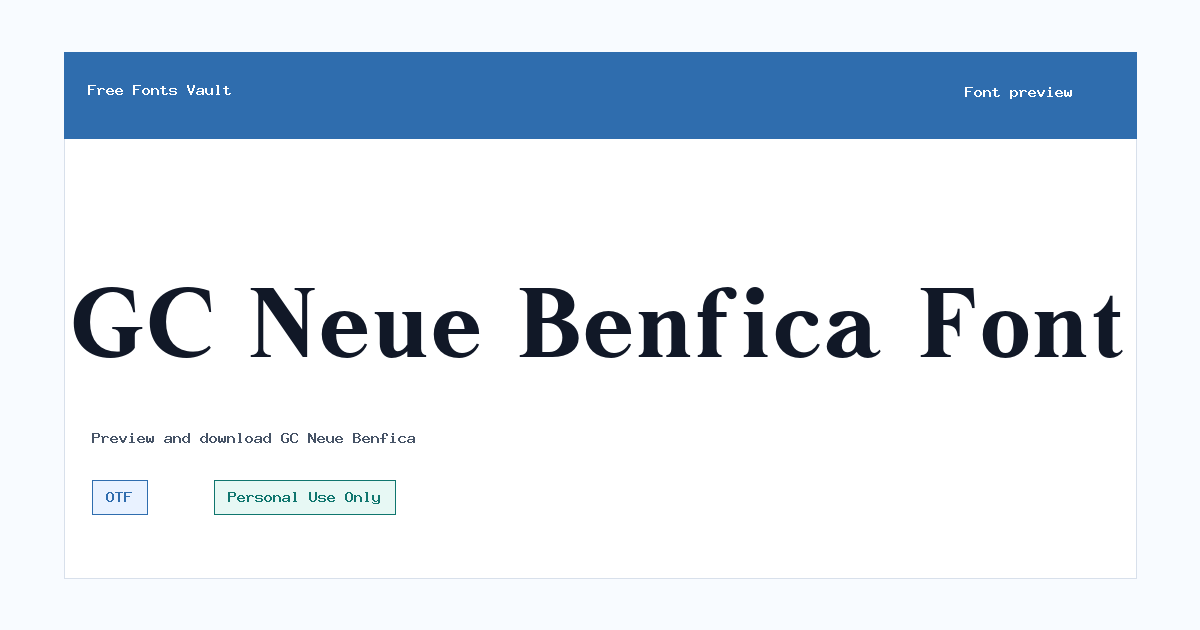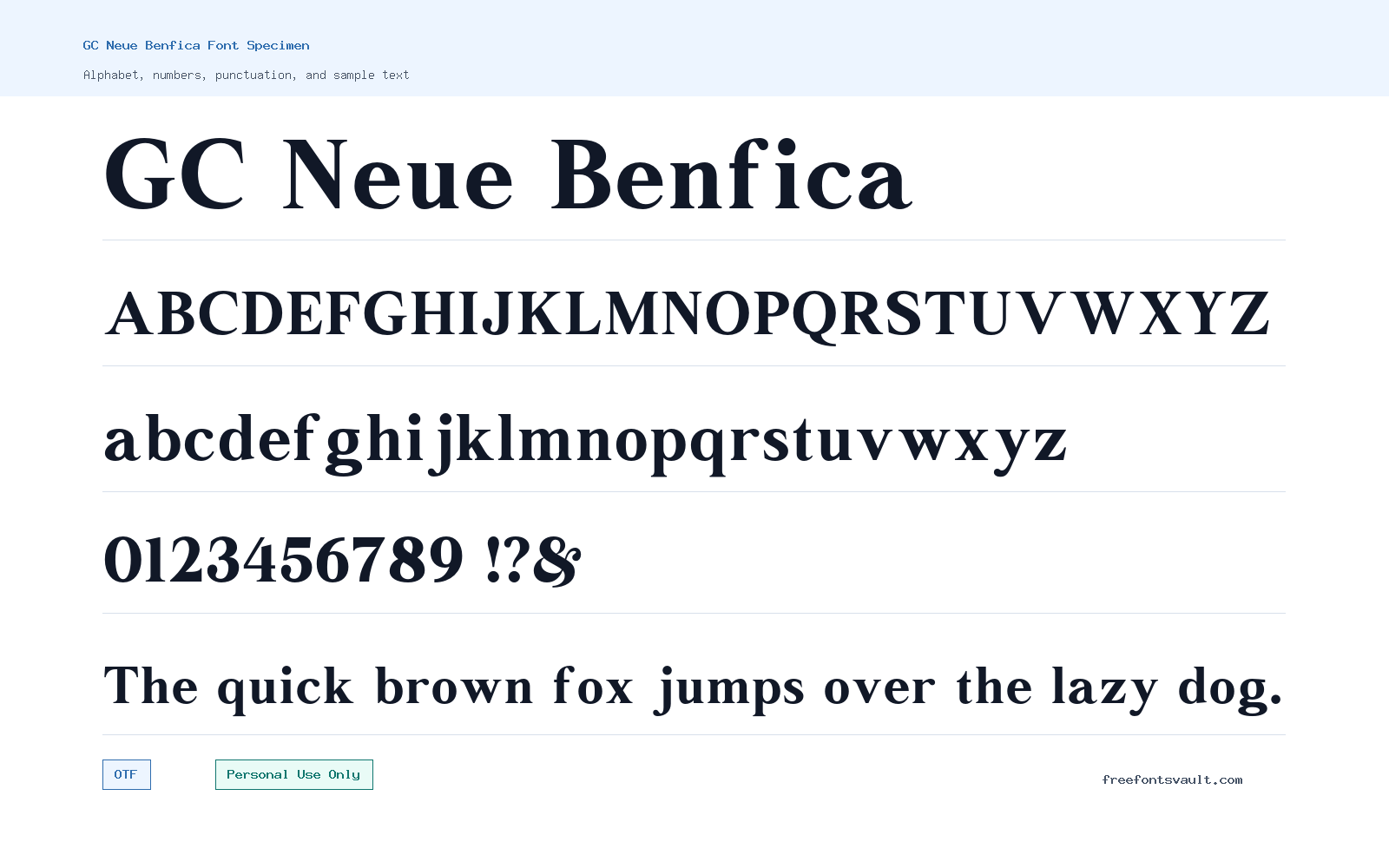
GC Neue Benfica
- Designer Achmad Akbar Afiansyah of Glyphonic
GC Neue Benfica font.
GC Neue Benfica is a bold serif font with a display-focused feel, suited to short text where strong letter shapes matter more than long-form readability.
About GC Neue Benfica
GC Neue Benfica comes as an OTF font file in a regular style with a bold weight. Its serif construction gives words a more formal and structured look than a plain sans serif, while the heavier weight makes it better for headlines, title cards, badges, posters, and other short pieces of text. Because only one demo-style variant is listed, it is best treated as a focused display font rather than a full family for complex typography systems.
- Serif display character suited to headings and short text
- Posters, title graphics, covers, badges, and editorial-style headings
- Short branding mockups, preview layouts, and personal design experiments
GC Neue Benfica is credited to Achmad Akbar Afiansyah of Glyphonic.
What style of font is GC Neue Benfica?
It is a serif display-style font with a bold weight, making it more suitable for short, prominent text than for long reading passages.
Who designed GC Neue Benfica?
The font is credited to Achmad Akbar Afiansyah of Glyphonic.